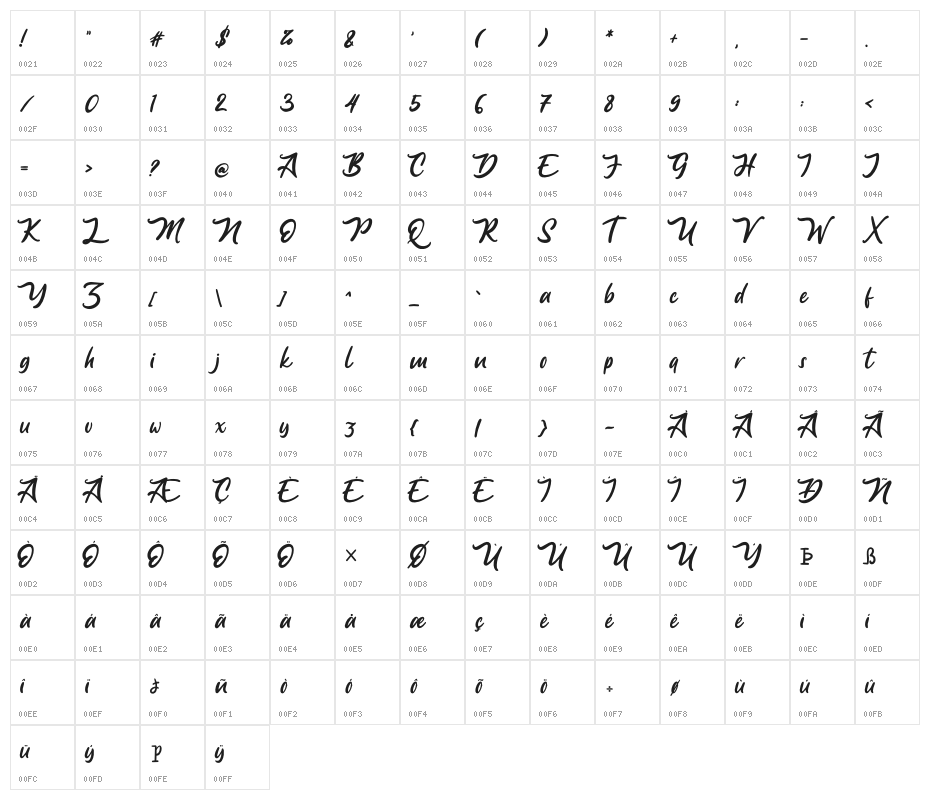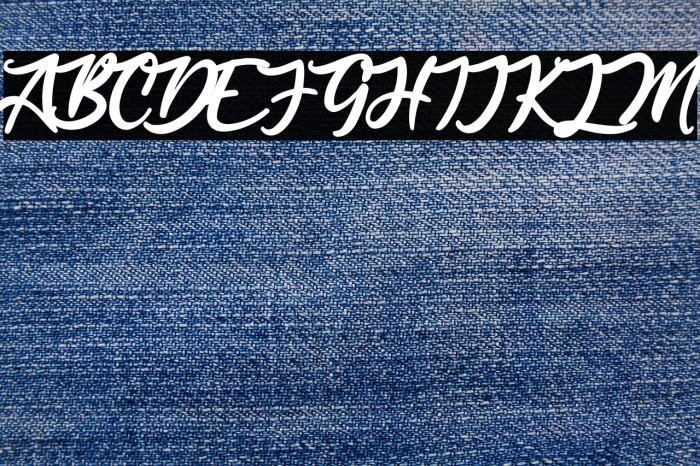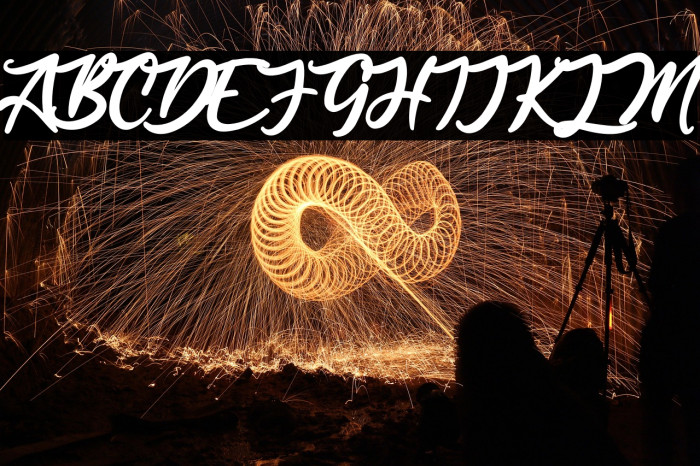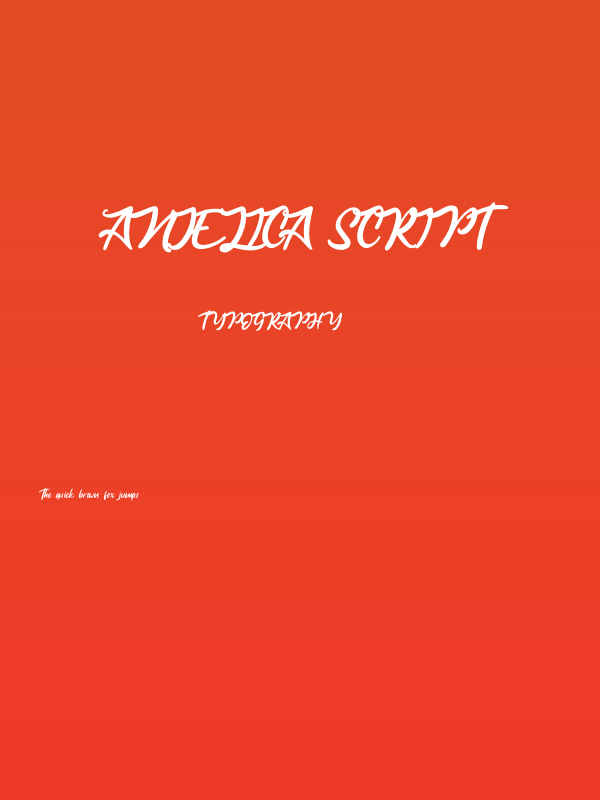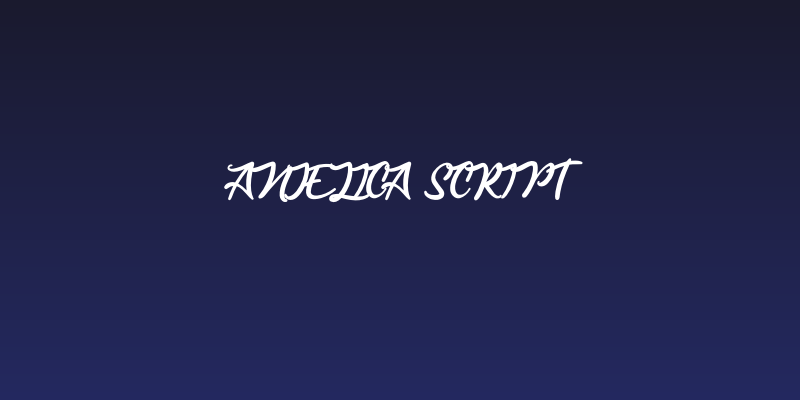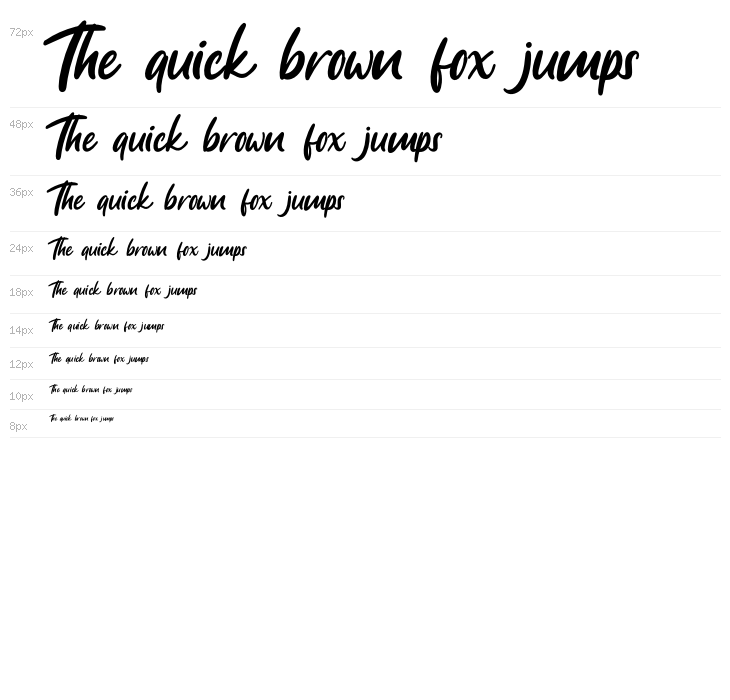
Anjelica Script Font
Anjelica Script Description
This script font exudes elegance and fluidity, characterized by its flowing, cursive style. The letters are interconnected with smooth, sweeping strokes that create a sense of movement and grace. The uppercase letters are bold and prominent, while the lowercase letters maintain a consistent flow, enhancing readability. The numerals and special characters are crafted with the same attention to detail, ensuring a cohesive look across all glyphs. This font is ideal for projects that require a touch of sophistication and charm, such as invitations, branding, and decorative designs.
| Overall Style | Elegant, Decorative |
| Proposed Projects | Ideal for wedding invitations, elegant branding, greeting cards, and decorative projects. |